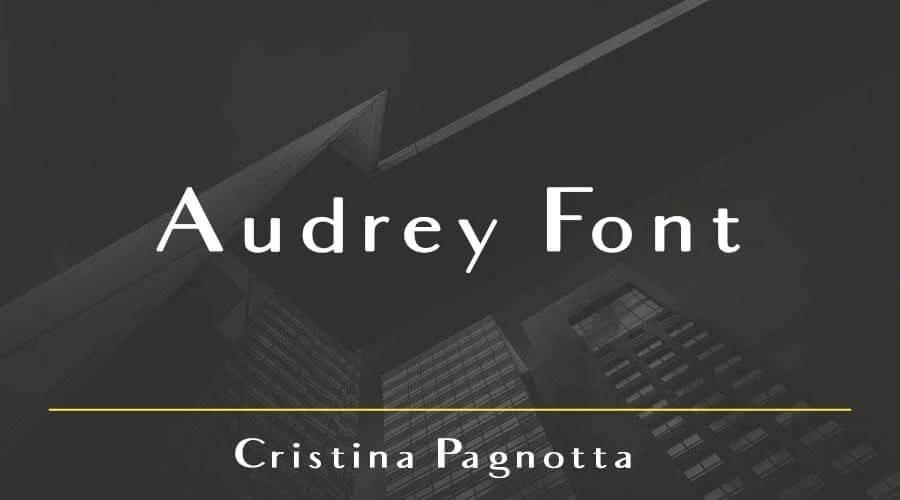
Audrey font is a Sans-Serif typeface designed by Cristina Pagnotta. Audrey is a new, free, and elegant typeface with three weights: regular, medium, and bold. Audrey has two variations: regular and oblique. For its two variations, Audrey is very much user-friendly and eye-catching. Every style has a stylish look which makes this font so popular among the designers.
As the font has three styles and an eye-catching typeface, it is good for almost every section you need.